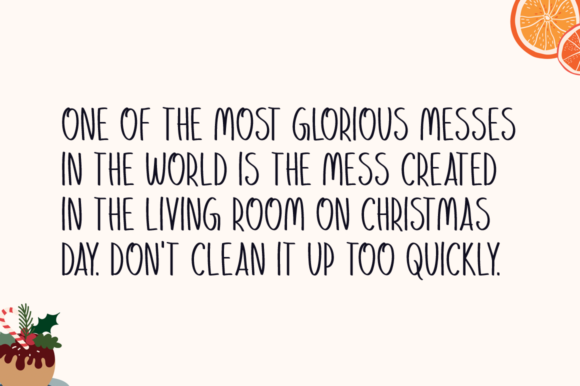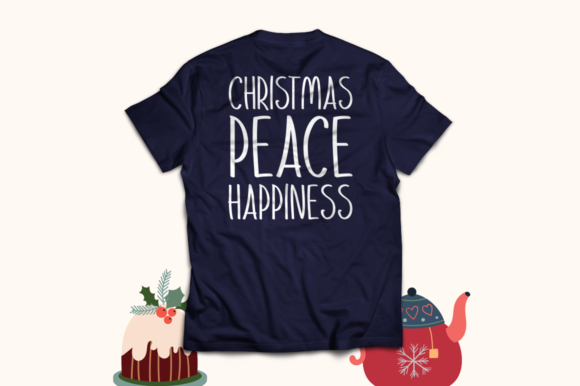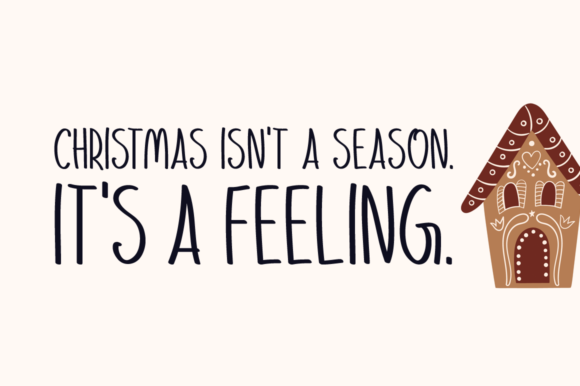
About Christmas Preference Font
Christmas Preference is a clean, simple and natural handwritten font. Not too thin and not too thick, balanced and varied, this font was designed to enhance the beauty of your projects.